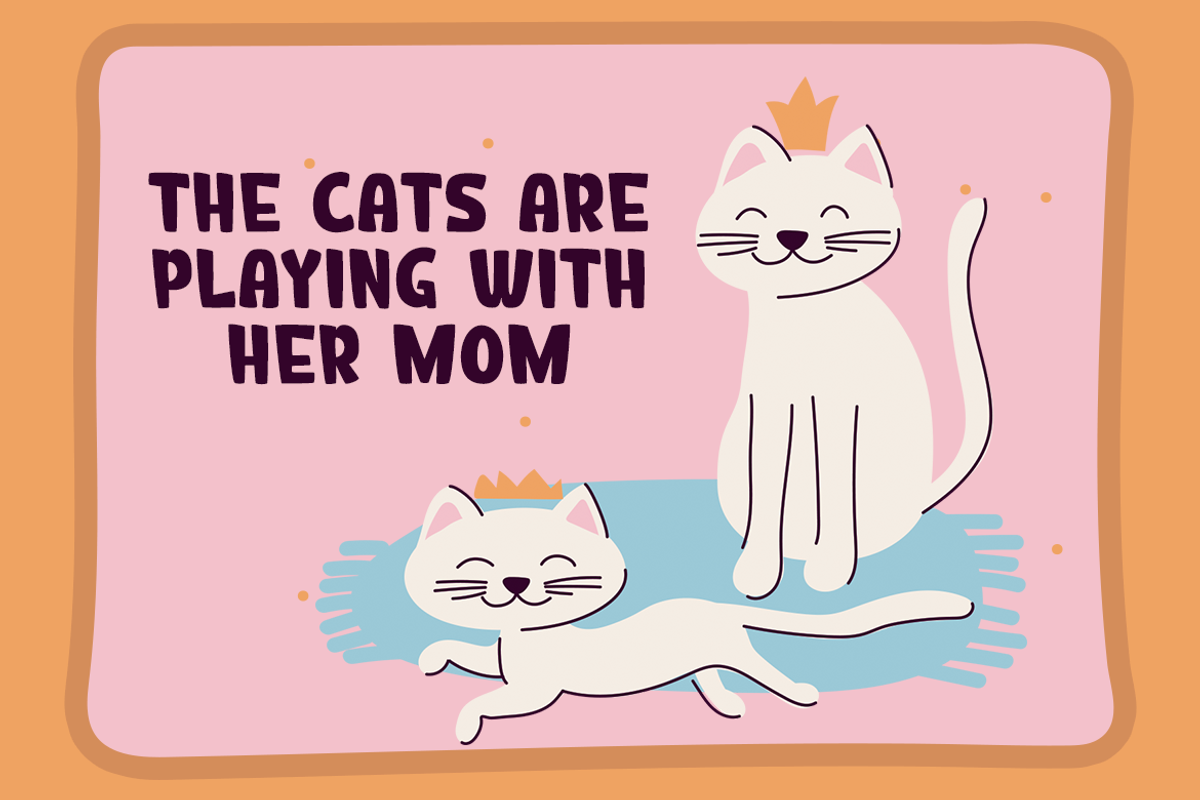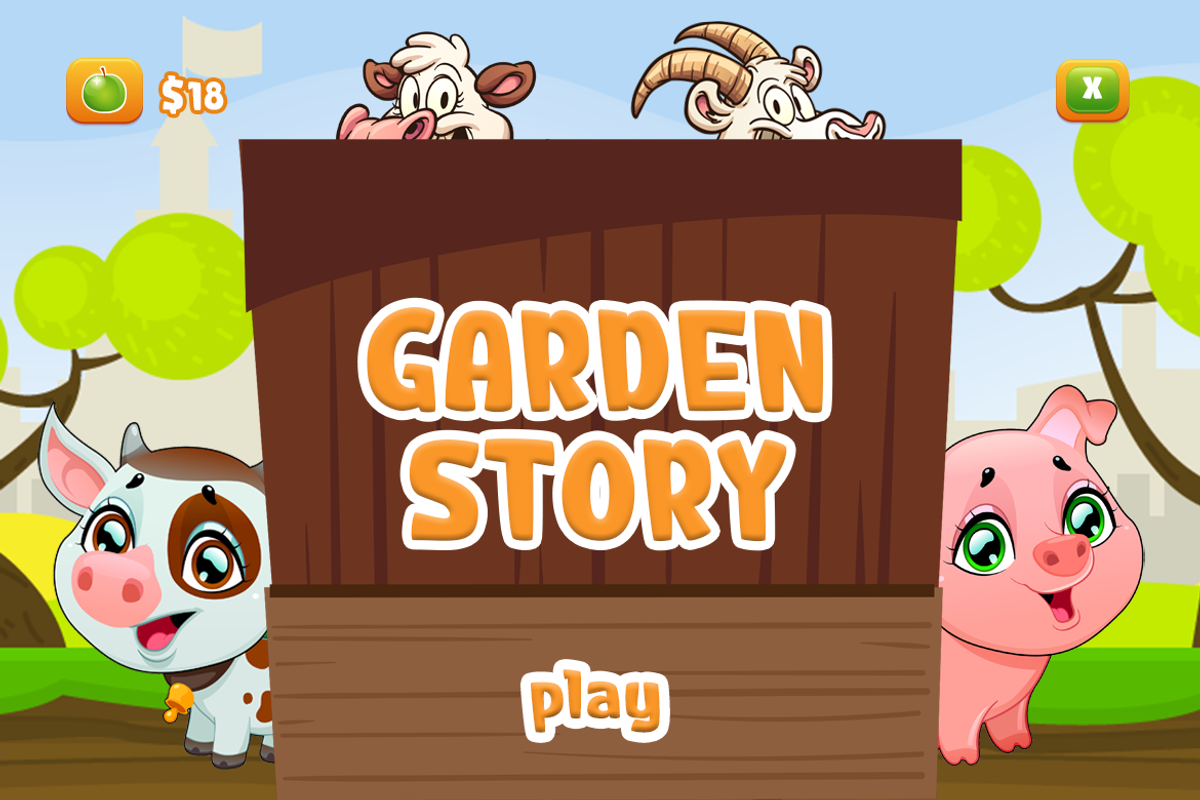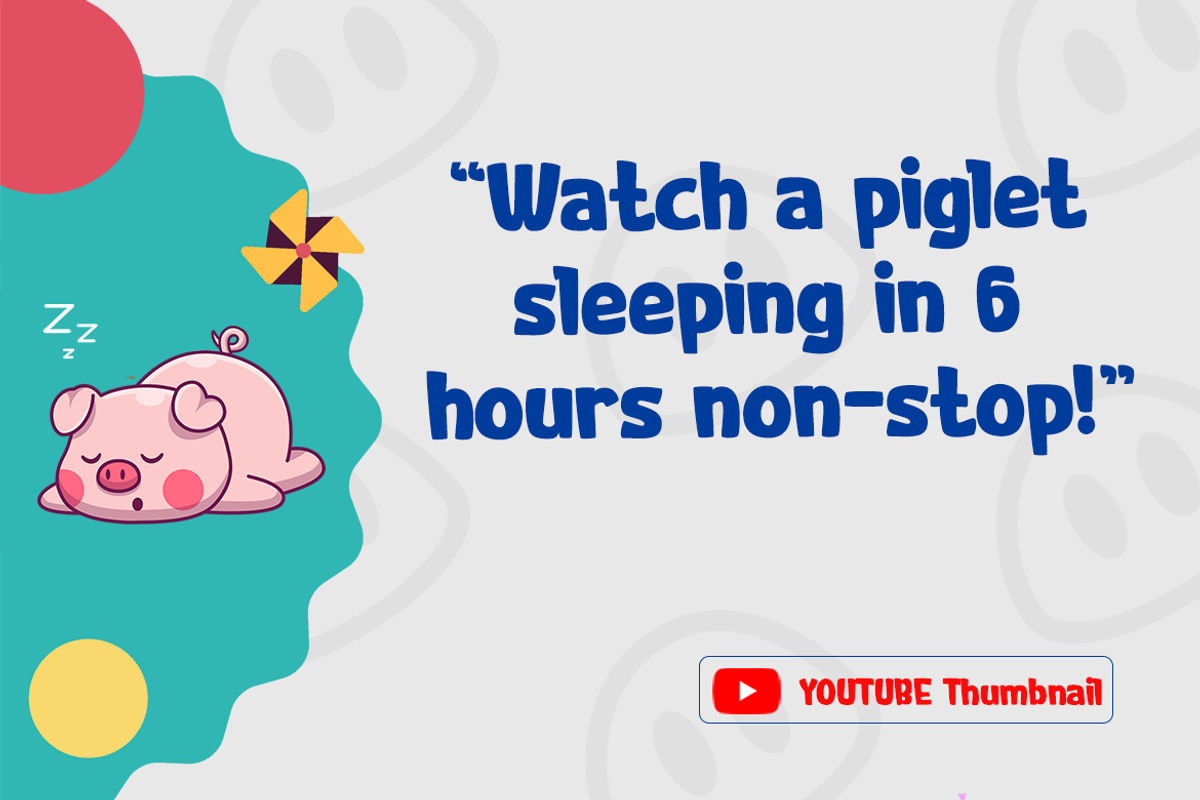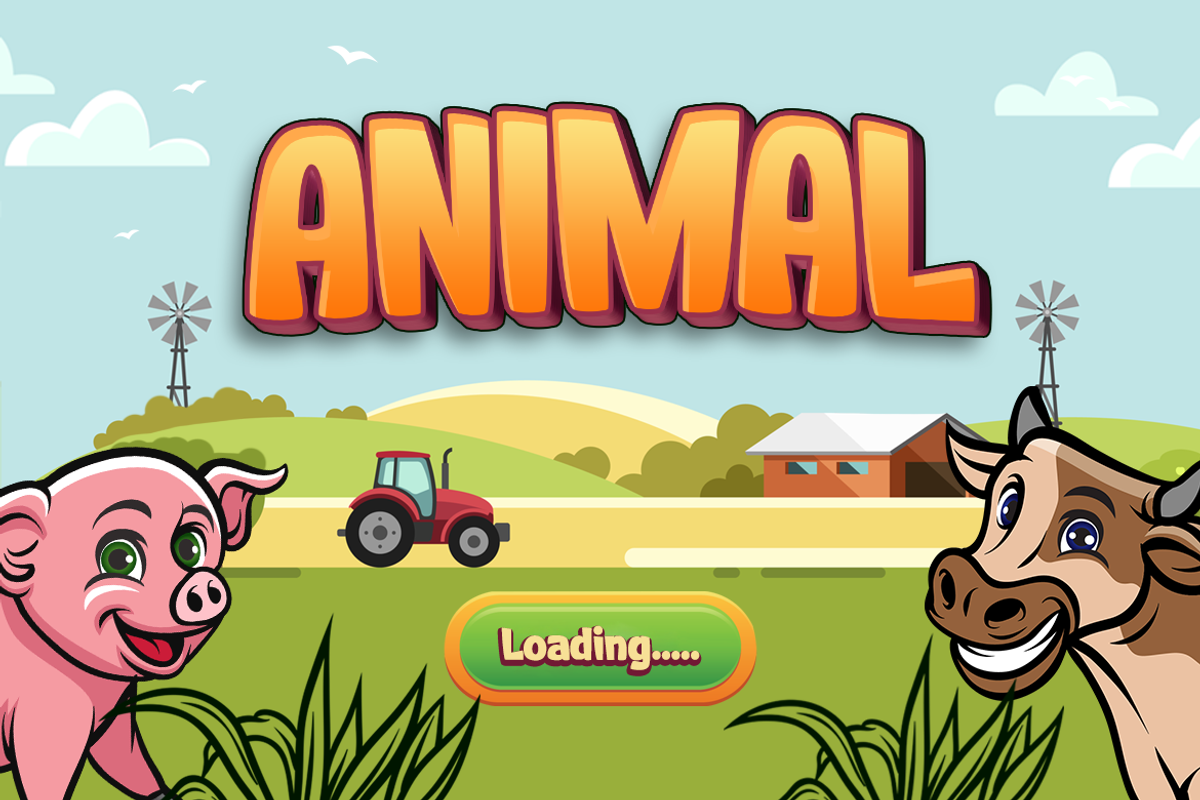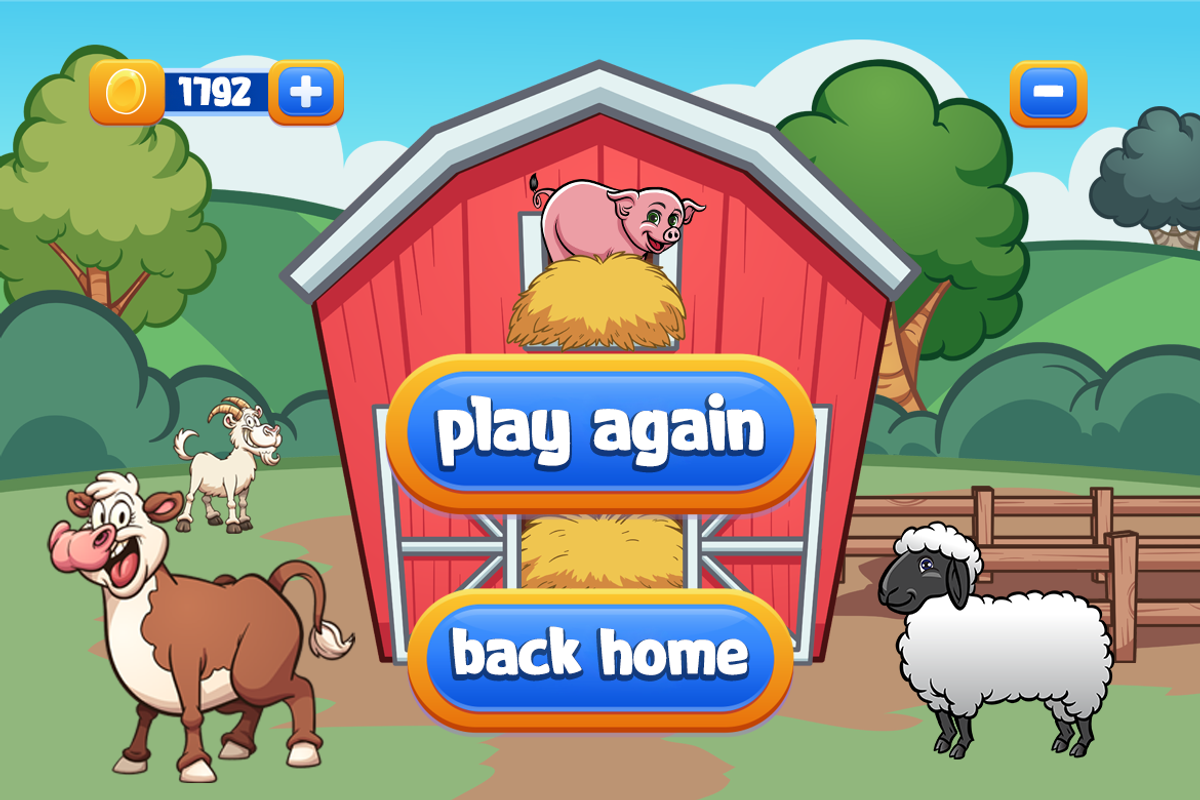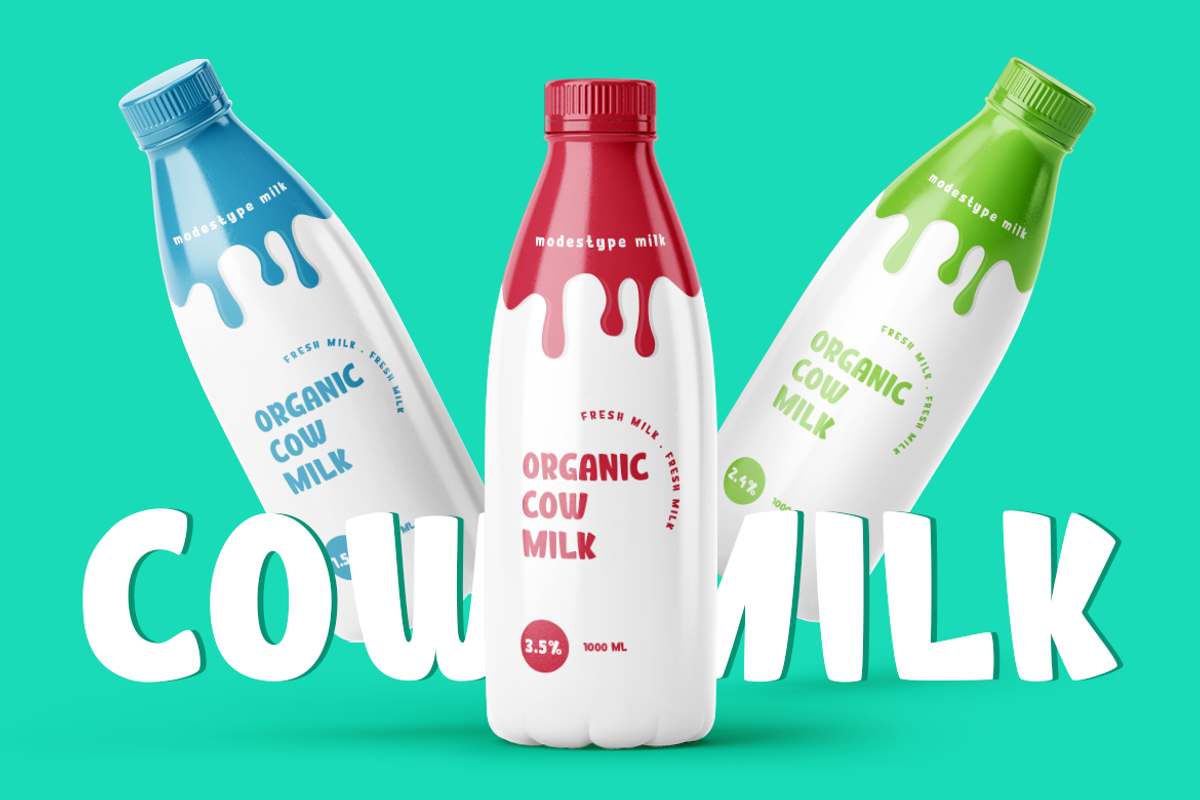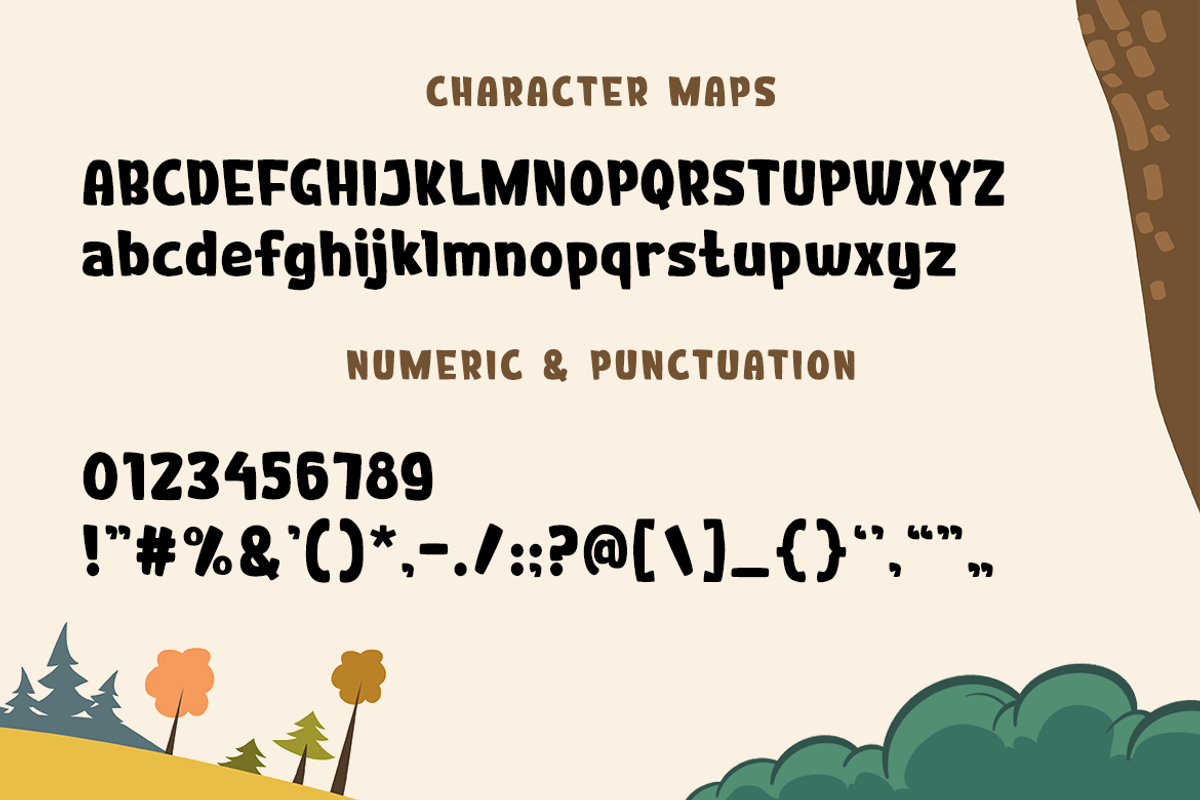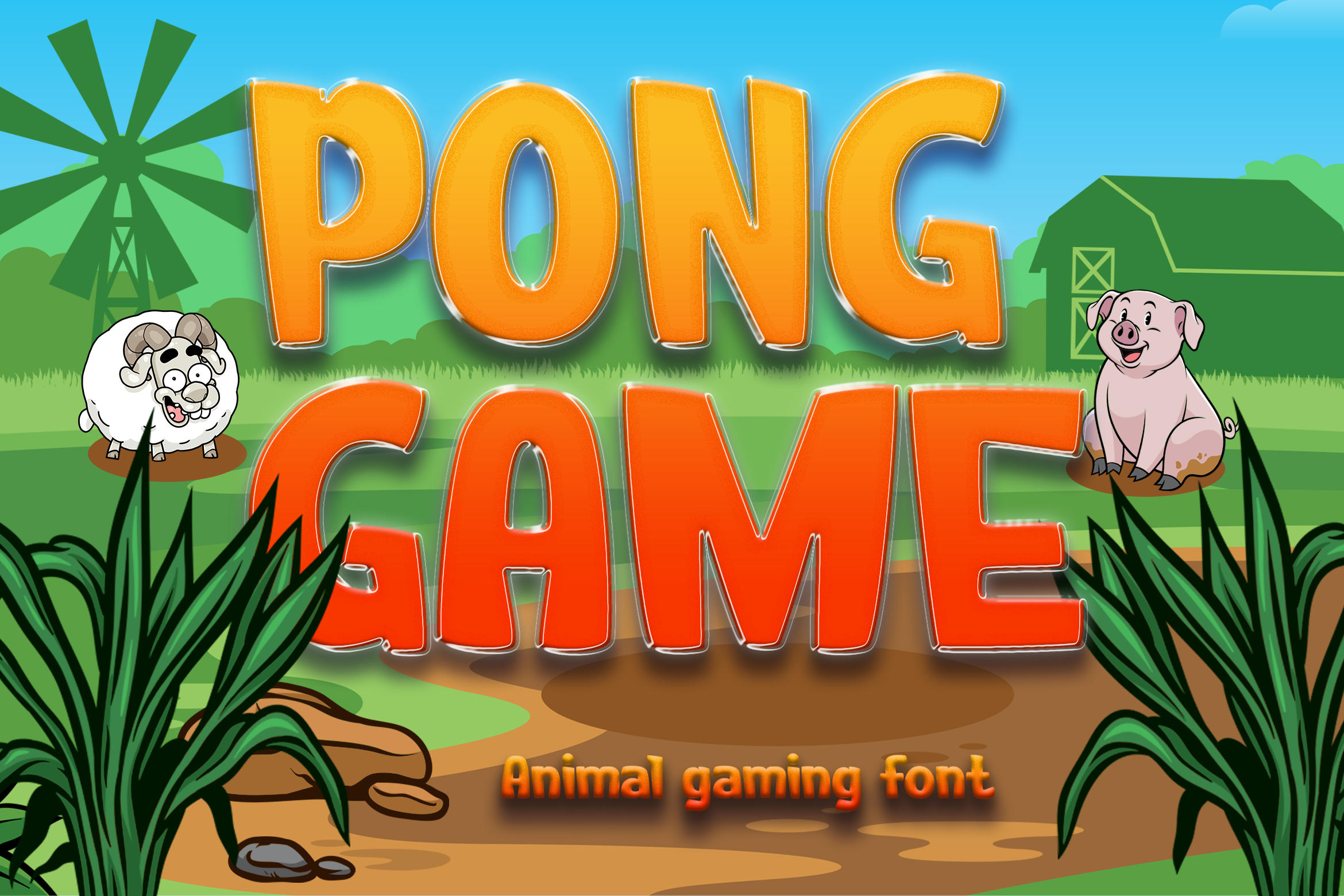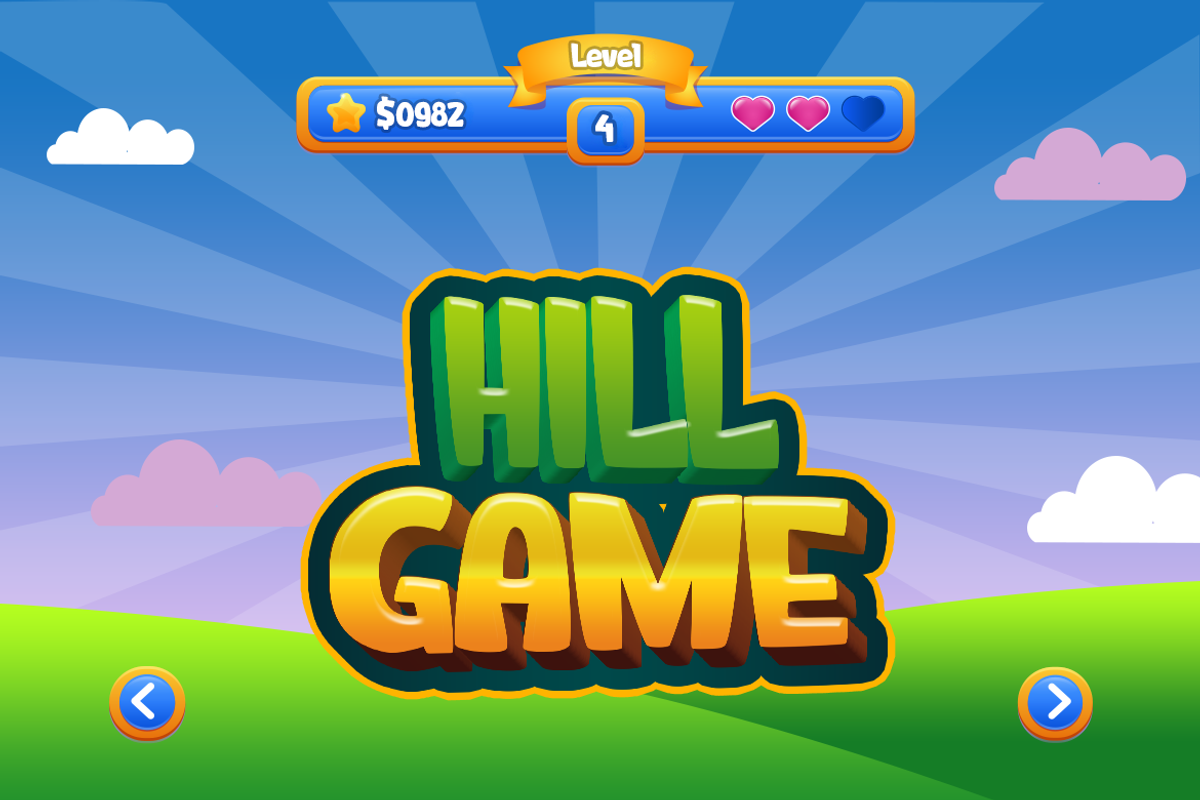
Pong Game - Animal Gaming Font
Pong Game - Kids Gaming Font
Big and Tall, and conquer them all. Pong Game will take a huge impact on the arena you are playing.
Suit perfect for cartoon books market, online games, event posters, school supplies font, food packaging fonts, posters, movie titles, youtube covers, youtube thumbnails, social media page covers, and so on...